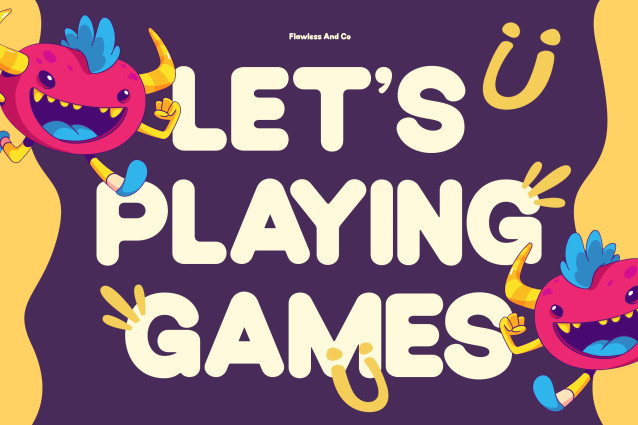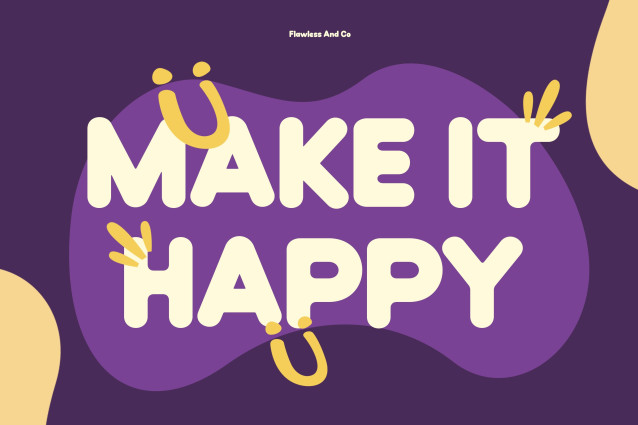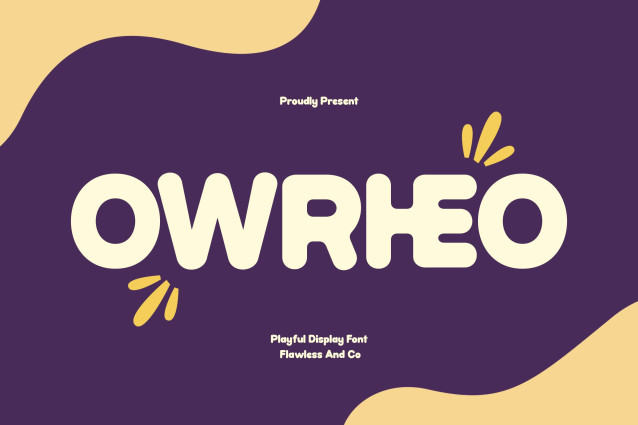
Owrheo – Playful Display Font
Owrheo is a playful display font that turns every word into a burst of creativity. With its bold curves, quirky letterforms, and cheerful personality, Owrheo is designed to make your typography feel lively, expressive, and impossible to ignore. Every character is crafted with a sense of fun, creating a visual rhythm that instantly brings warmth and excitement to your designs.